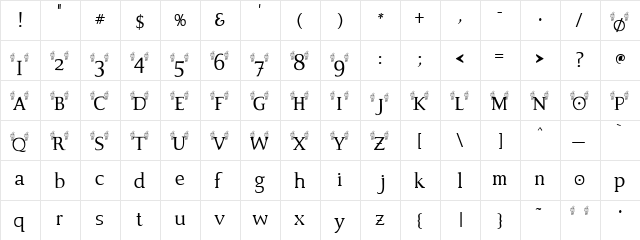
ChristmasMouse Regular Font Preview
ChristmasMouse Regular
Design Context for ChristmasMouse Typeface
ChristmasMouse is a composed and adaptable typeface that performs quietly and consistently across a wide range of design contexts.